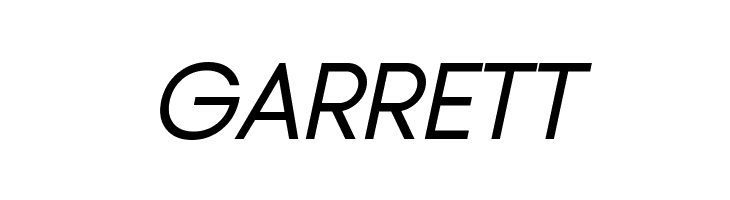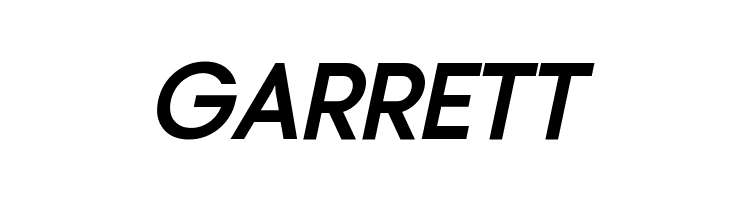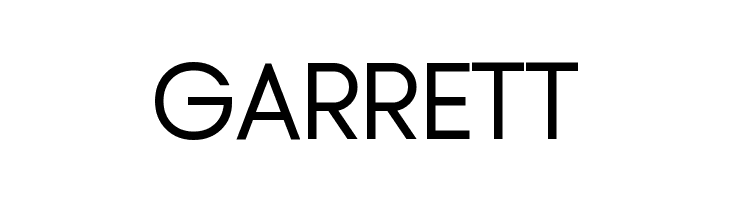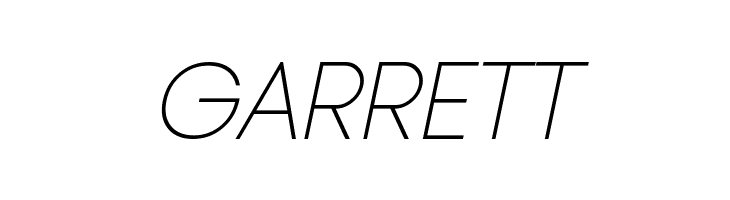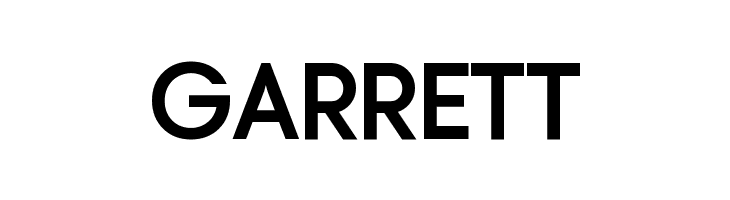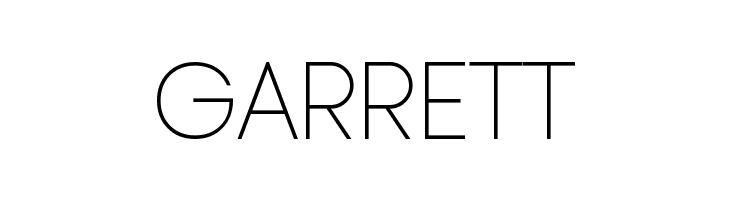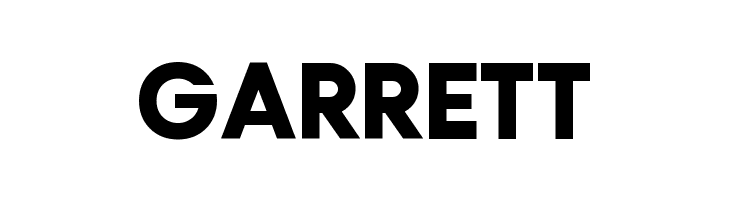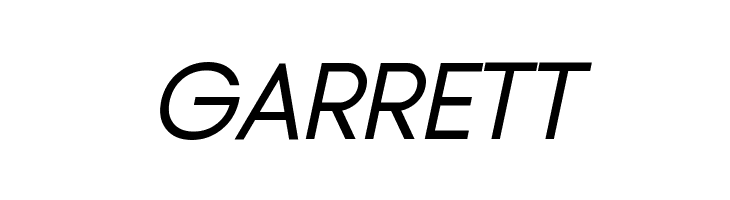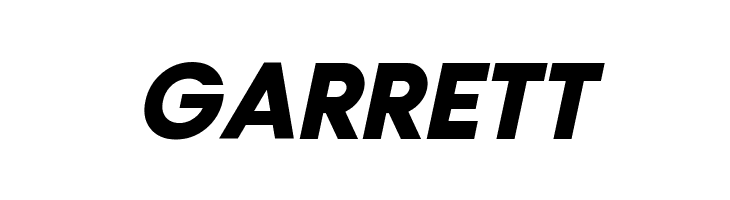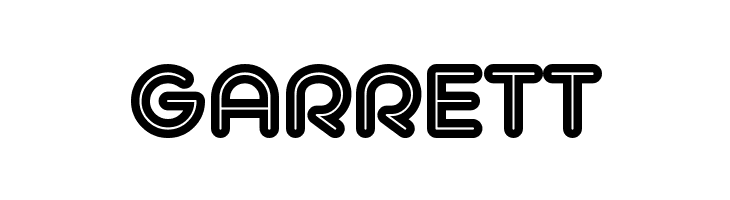
A modern, geometric sans-serif font with clean lines and balanced spacing.
A bold, modern font with thick, uniform strokes and geometric precision.
A bold and italic font with a dynamic and modern style.
A sleek, modern italic font with clean lines and smooth curves.
A clean, minimalist font with thin, uniform strokes and a modern aesthetic.
A sleek, light, and italicized font with a modern and elegant style.
A bold, geometric font with a modern and clean aesthetic.
A bold, italicized font with thick strokes and a modern, dynamic style.
A bold, modern sans-serif font with clean, geometric lines.
A bold and italicized font with strong, dynamic strokes and a commanding presence.
A sleek, modern italic font with clean lines and a dynamic appearance.
A clean, modern font with a minimalist and professional design.
A light, italic font with a modern and elegant style.
A clean, modern sans-serif font with uniform stroke widths and excellent readability.
A modern, italicized font with medium contrast and sleek design.
A modern, rounded sans-serif font with a clean and minimalistic style.
A bold, rounded font with smooth curves and a modern, playful style.
A minimalist, geometric font with thin, consistent strokes for a modern look.
A bold, rounded font with a modern and clean style.
A bold, italic font with a modern and dynamic style, featuring rounded characters and a slightly condensed width.
A modern, rounded font with clean lines and balanced proportions.